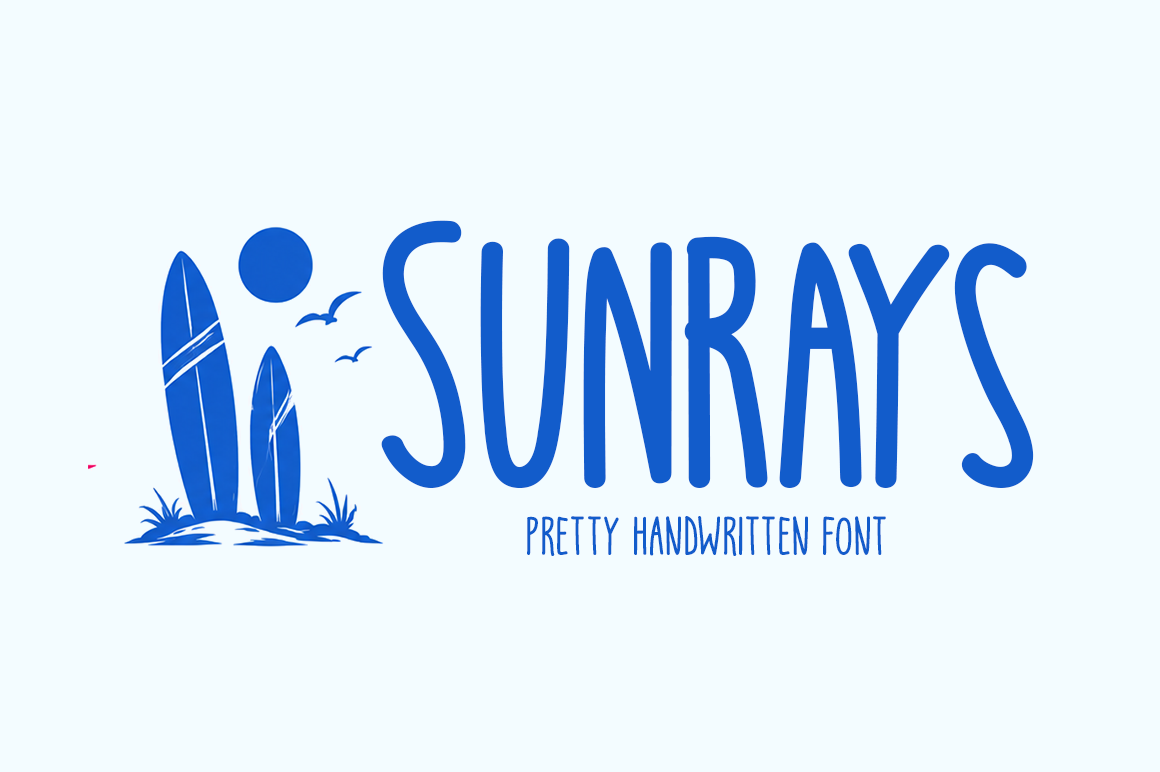
Sunrays Typeface
Introducing Sunrays!
Sunrays is a pretty handwritten font that brings warmth, elegance, and natural charm to every design. Its smooth strokes and authentic handwritten style create a friendly, inviting look perfect for branding, logos, packaging, social media graphics, invitations, greeting cards, quotes, wedding stationery, product labels, posters, website headers, craft projects, Cricut creations, printable designs, and countless creative projects where a stylish handwritten touch enhances every detail beautifully.
Includes a range of multilingual support